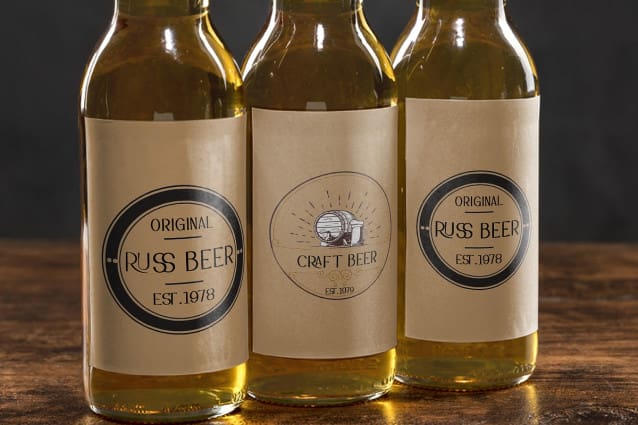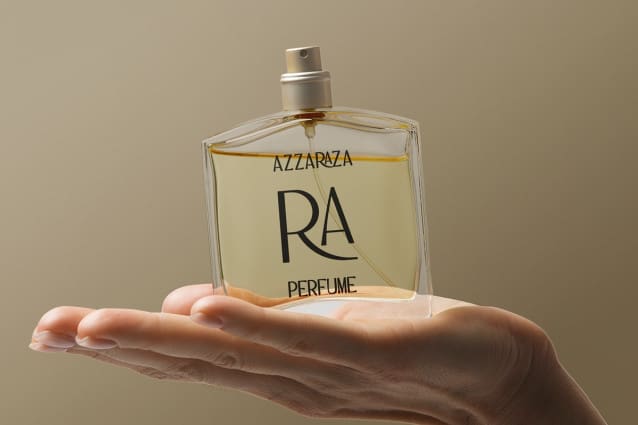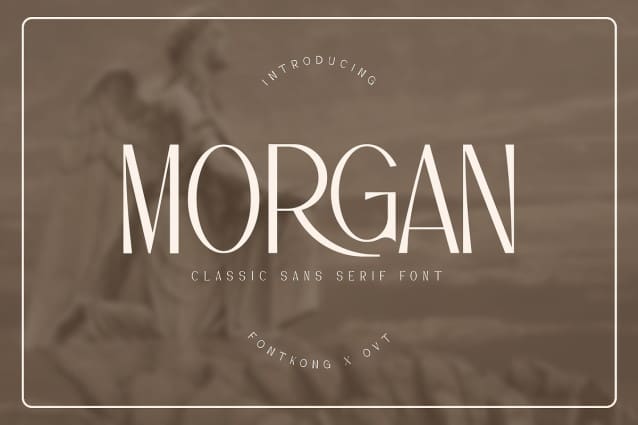
Morgan Sans Font
Morgan Sans Font a classic sans serif font that exudes simplicity and sophistication. With its clean lines and balanced proportions, Morgan adds a touch of refinement to any design project.
Crafted with precision and care, Morgan Sans captures the essence of classic typography while maintaining a modern appeal. Whether you’re creating editorial layouts, branding materials, or digital designs, this font radiates professionalism and grace.
Featuring a full range of characters, including uppercase and lowercase letters, numbers, and punctuation marks, Morgan offers versatility and flexibility for all your creative needs. Its clean and minimalist aesthetic ensures readability and visual harmony across various applications.
Elevate your typography to new heights with the enduring beauty and timeless sophistication of Morgan, where simplicity reigns supreme.